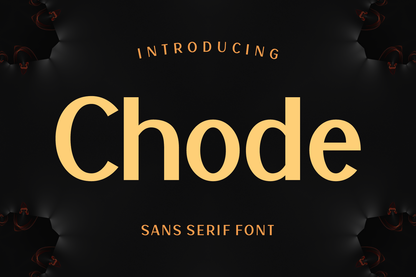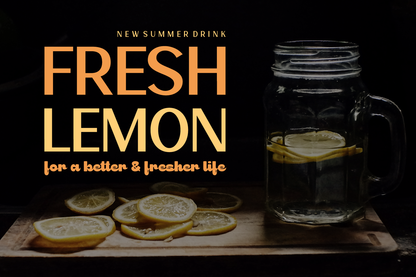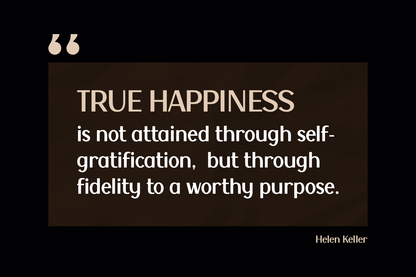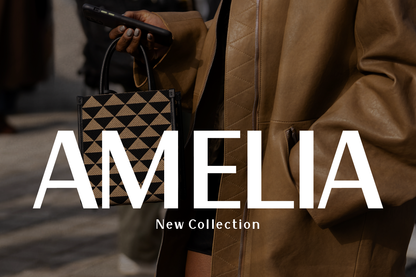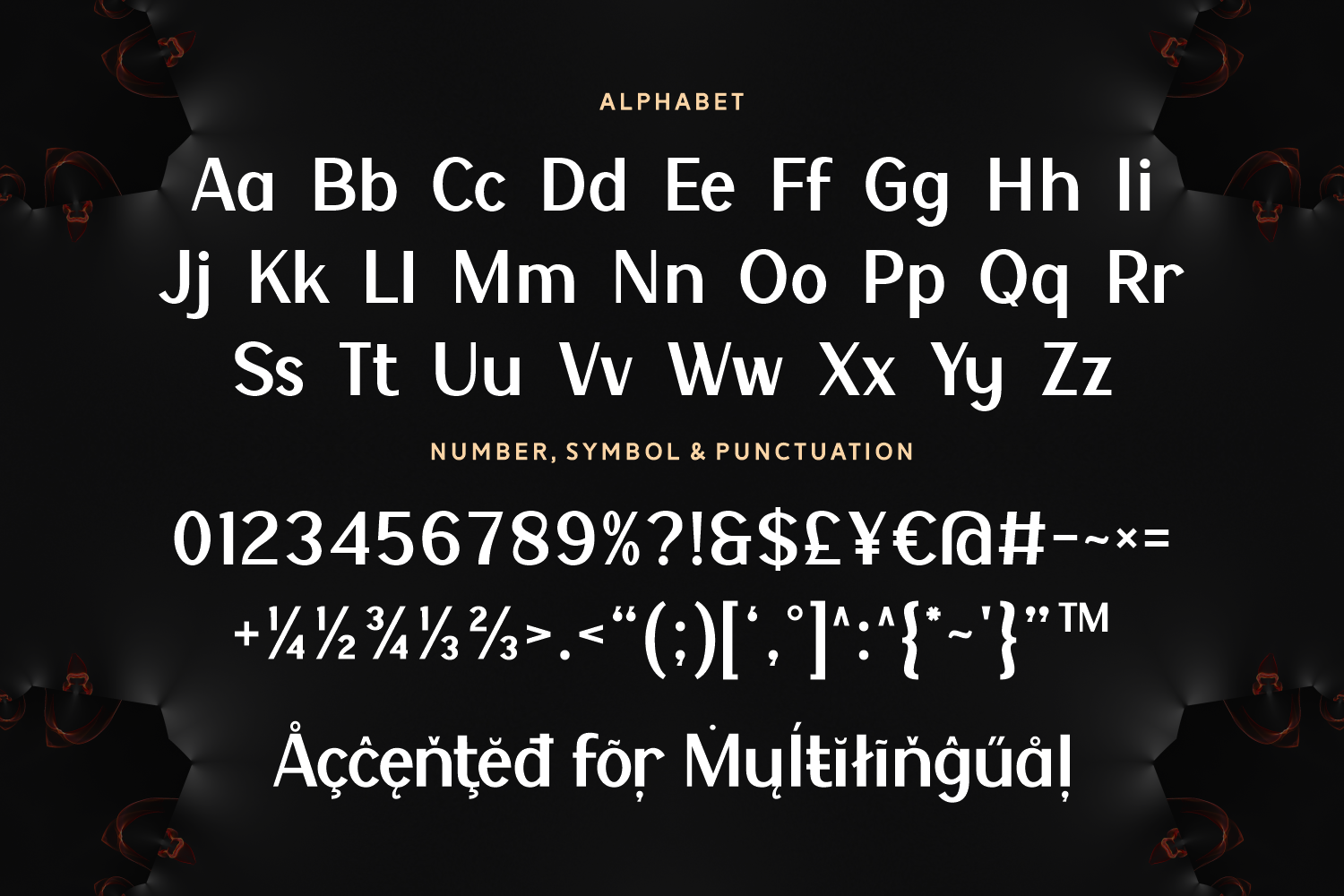
Chode is a sleek and contemporary sans serif font that emphasizes clarity and modernity. Its smooth letterforms and balanced spacing make it highly readable, making it a solid choice for logos, startups, and editorial design.